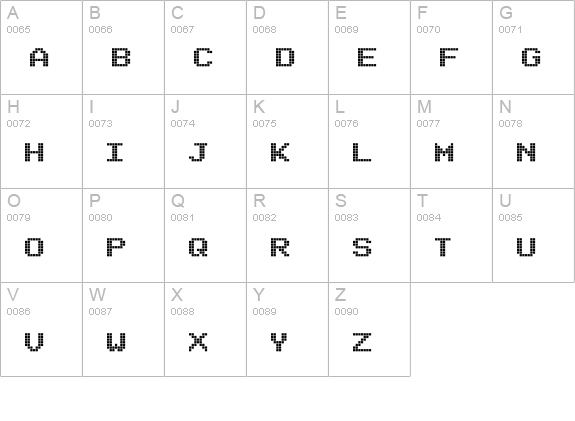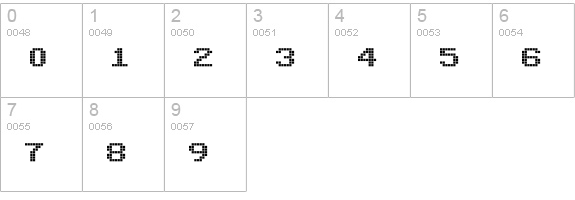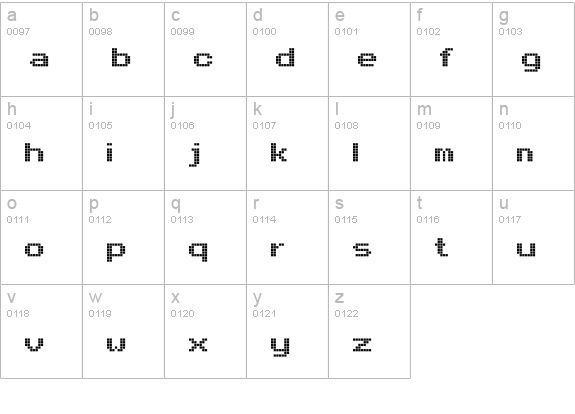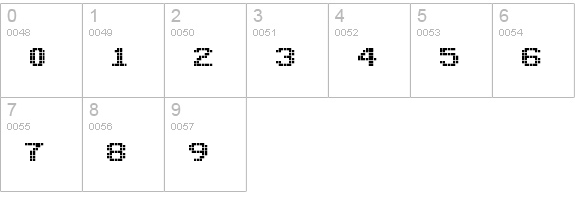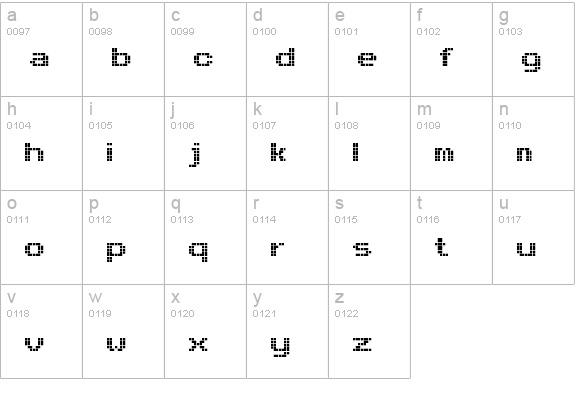
Arcade font is a bold and playful typeface that perfectly captures the essence of retro video games and arcade aesthetics. Its chunky letters and squared edges give off a nostalgic vibe that is sure to bring back memories of hours spent in dimly lit arcades. With its eye-catching design and vibrant personality, Arcade font is the perfect choice for projects that require a touch of fun and excitement. The best part about Arcade font is that it is completely free to download at FontsMarket.com. This means that you can easily add this unique and engaging typeface to your design arsenal without having to spend a dime. Whether you're working on a poster, logo, or website, Arcade font is sure to make your project stand out and leave a lasting impression on your audience. Don't miss out on the opportunity to enhance your designs with this fantastic font - download Arcade font for free today!